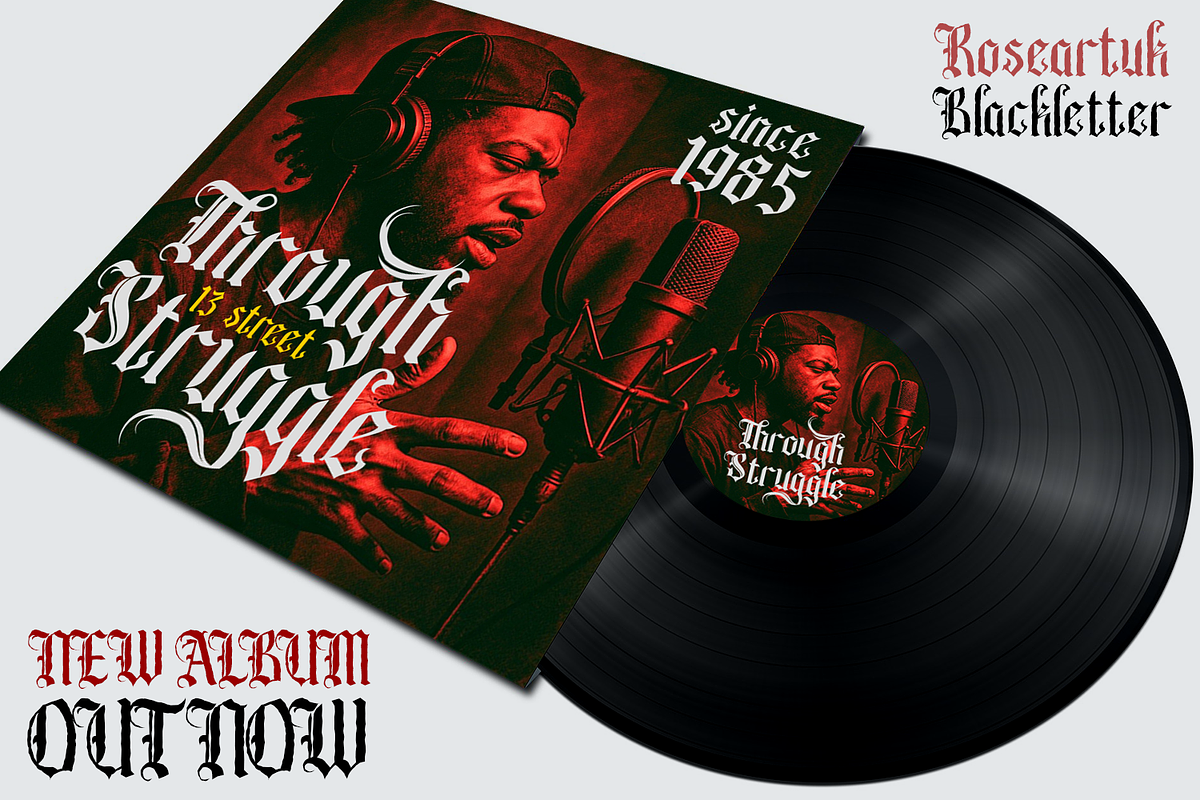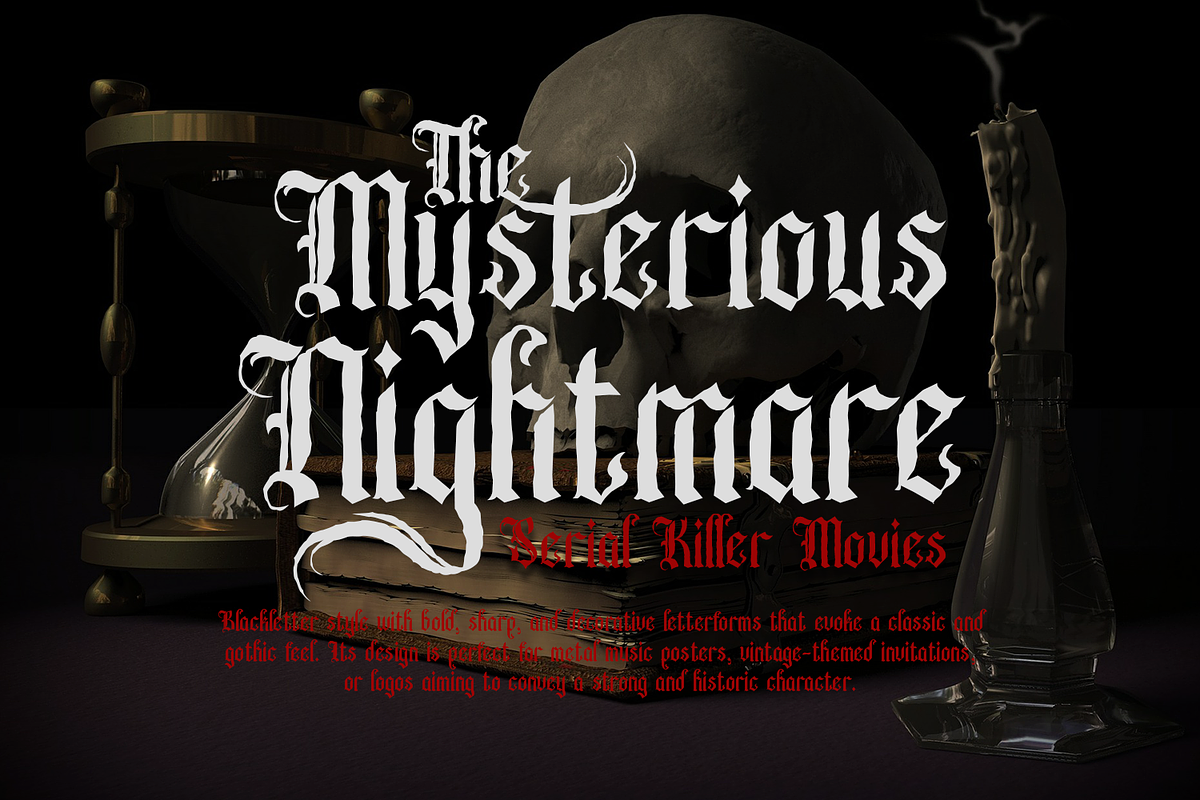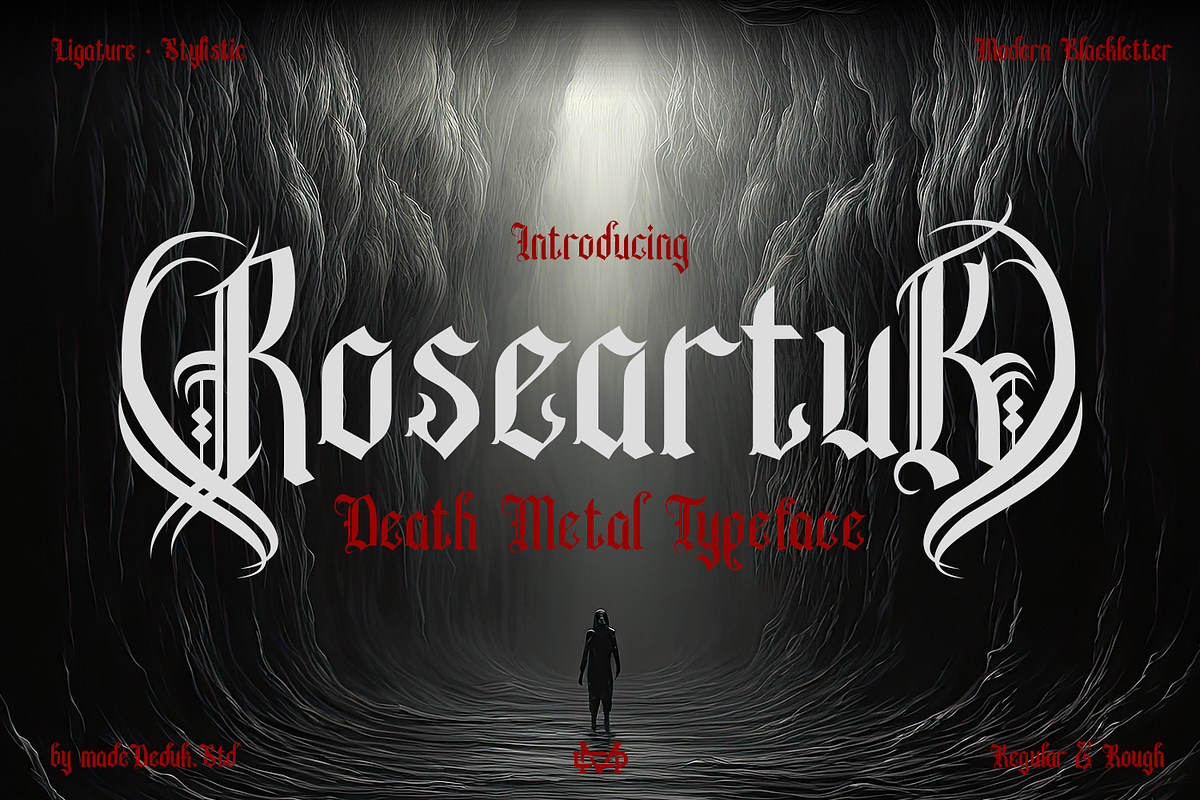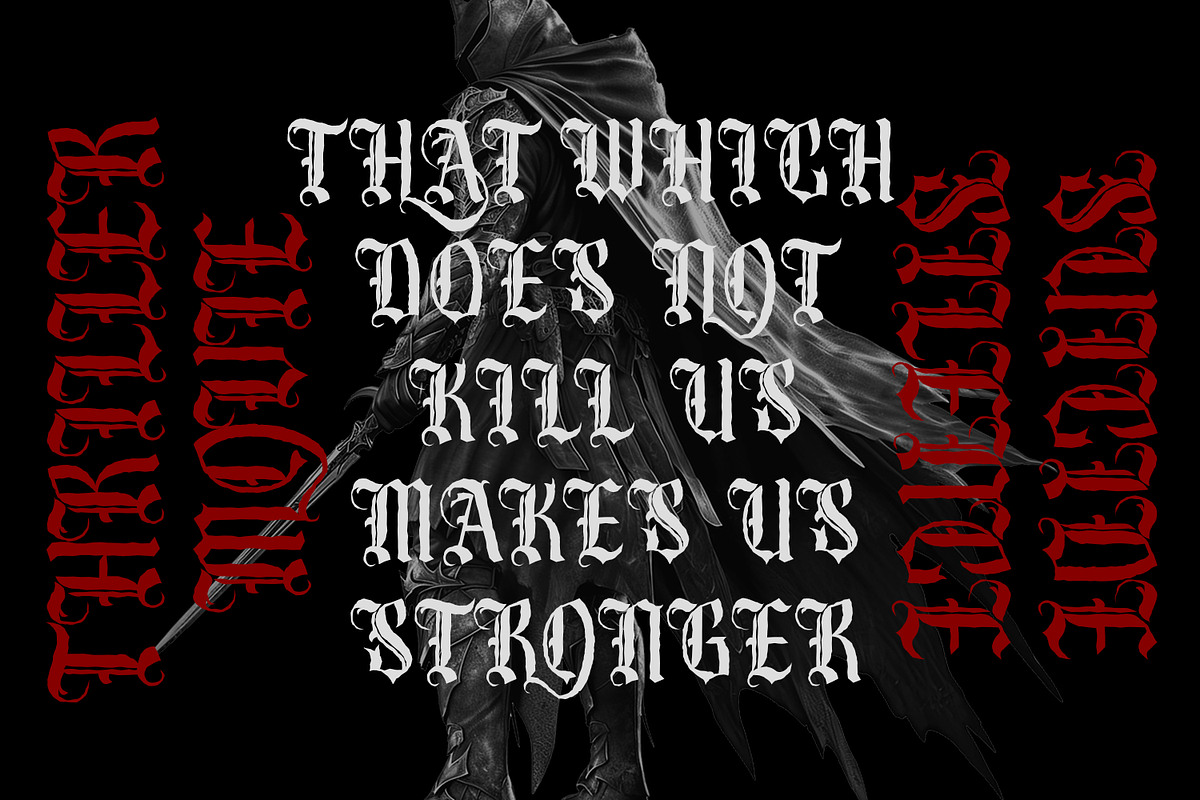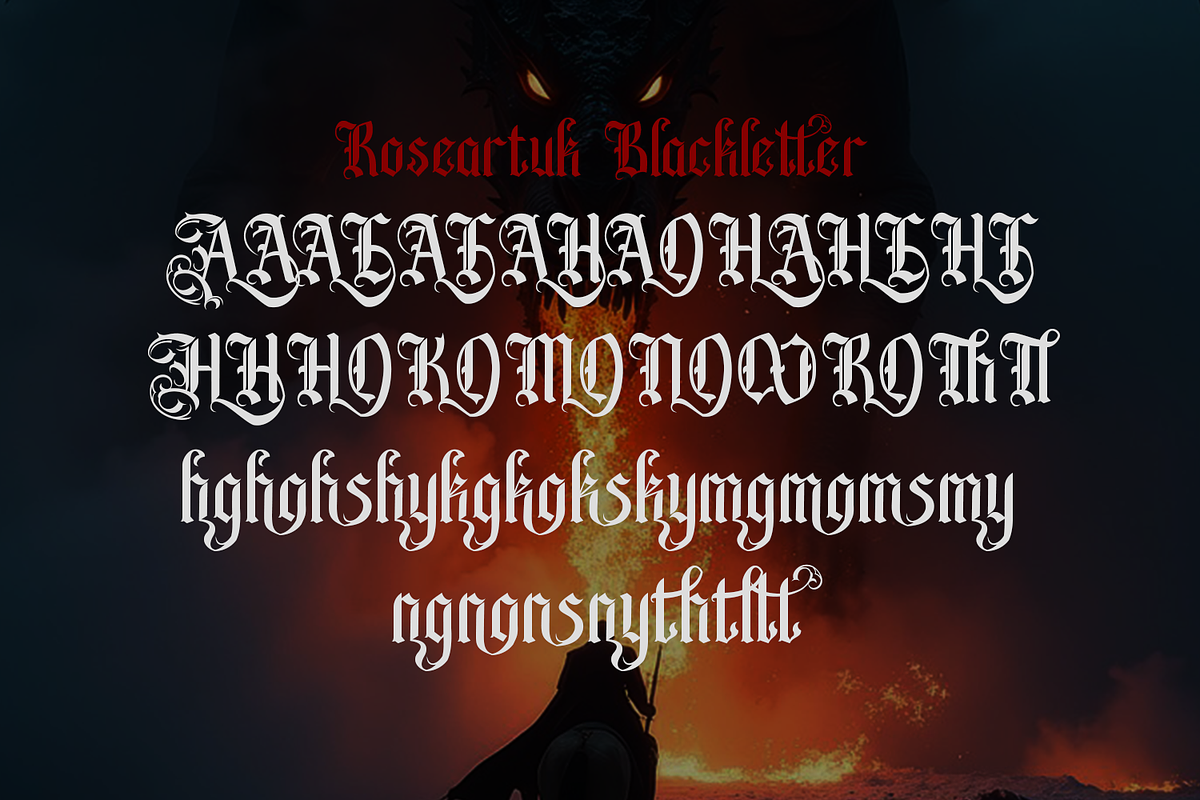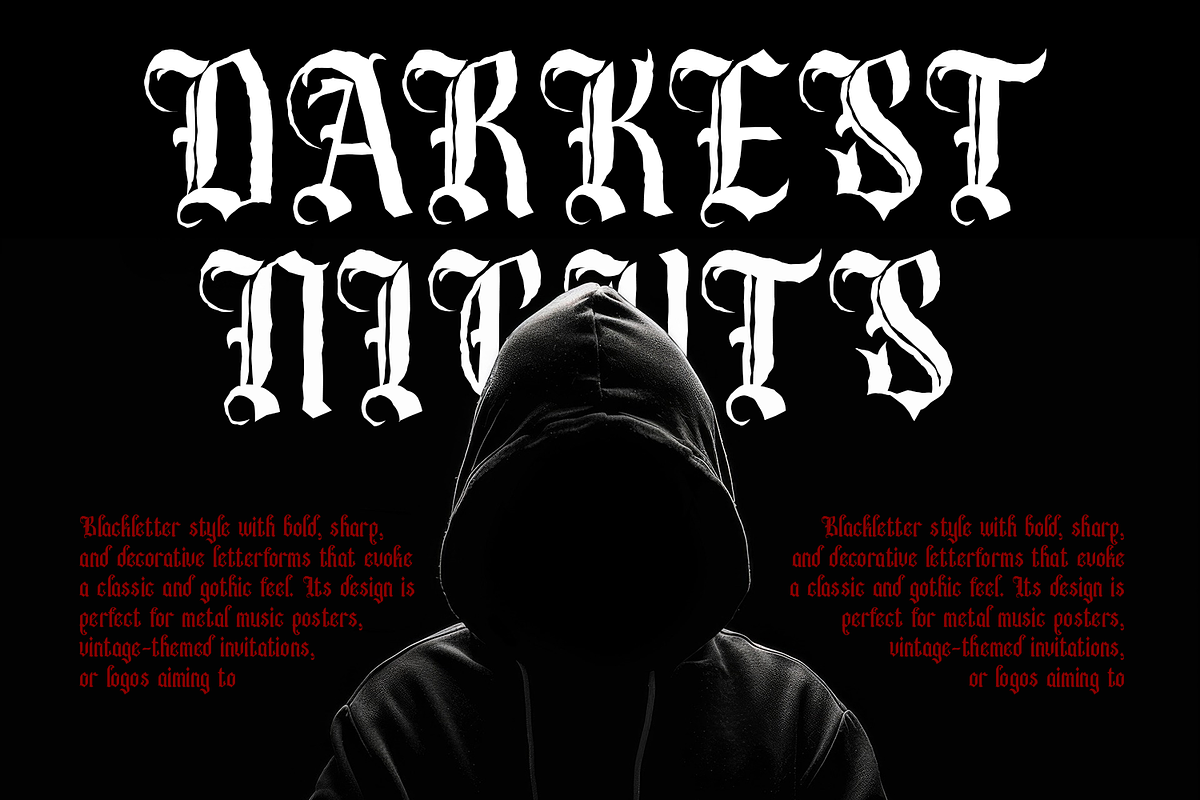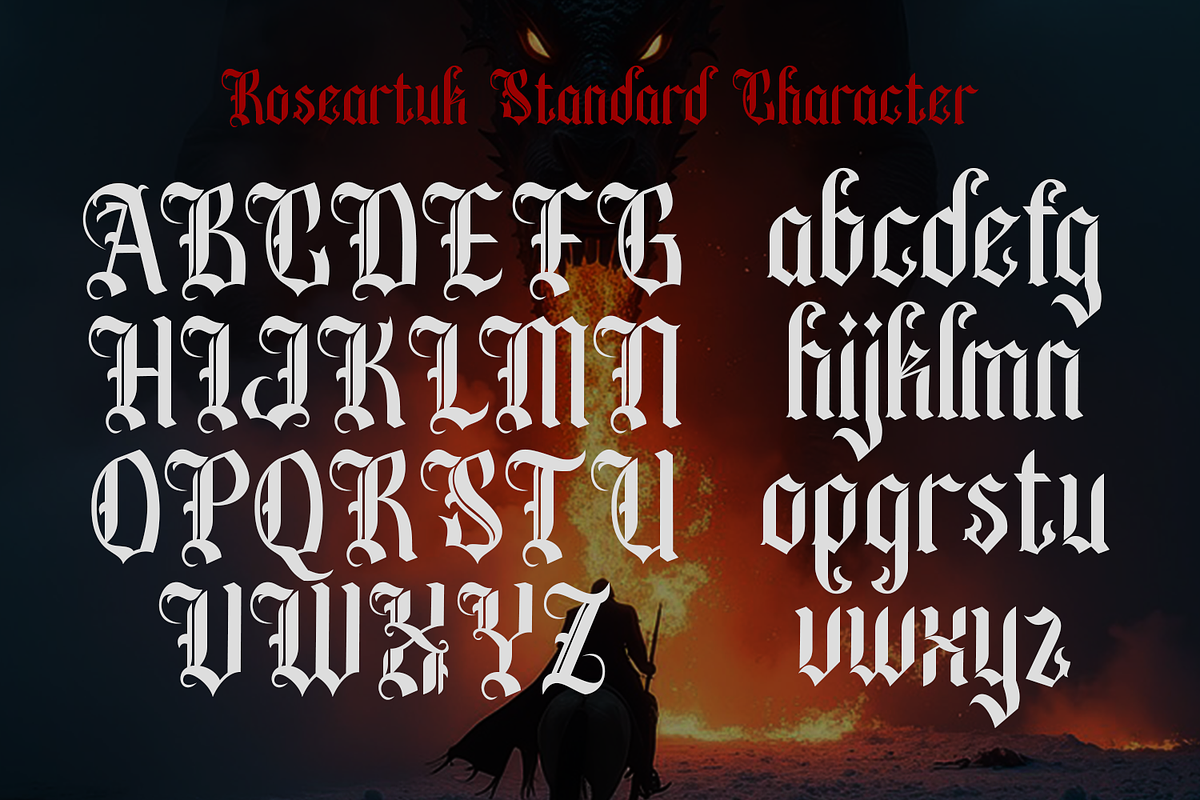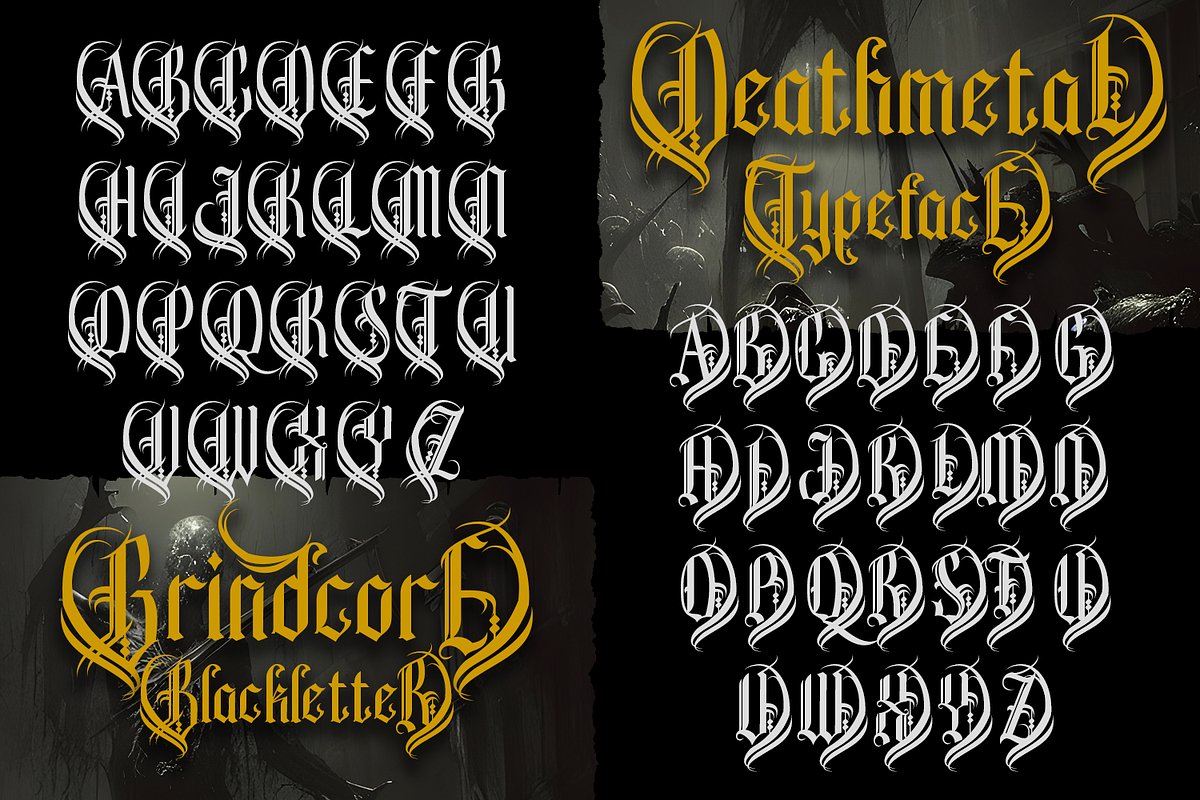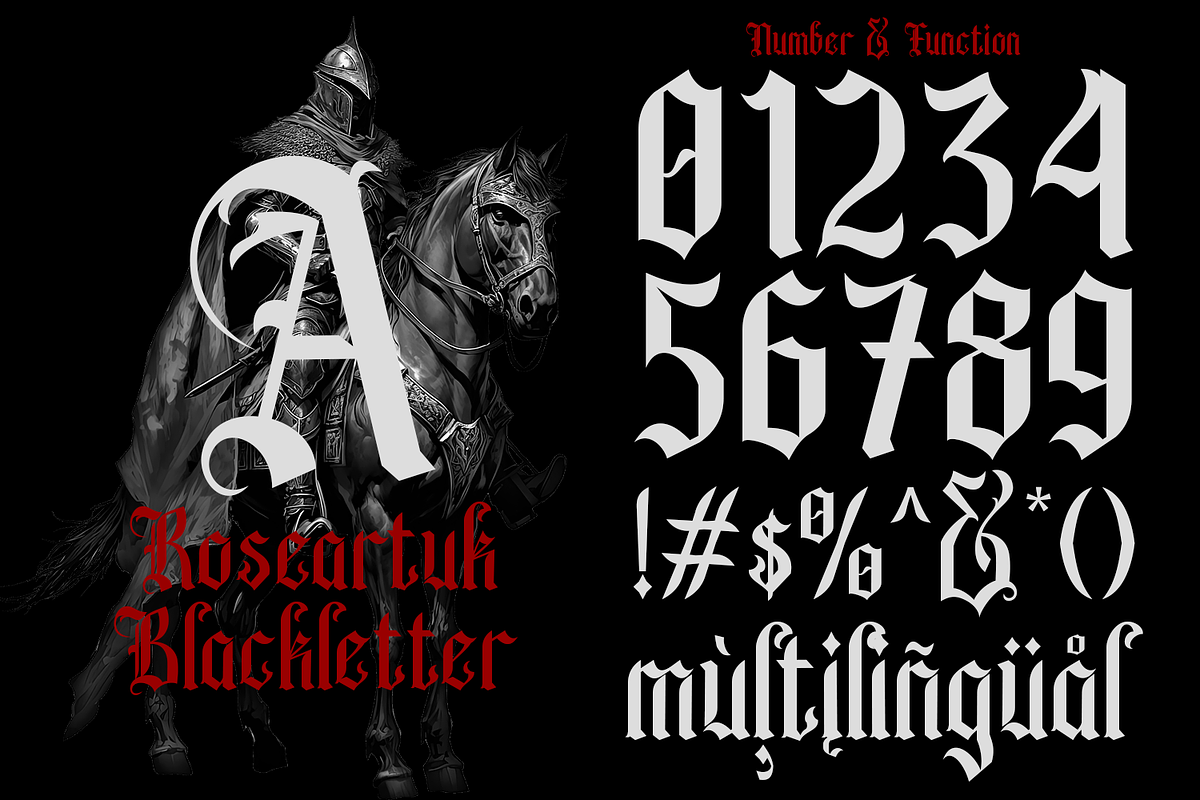
Roseartuk - Blackletter Font
Introducing Roseartuk, a Metal Blackletter style featuring bold, sharp, and decorative letterforms that evoke a classic gothic feel. This font comes with various styles, combining ligatures and special alternative glyphs, allowing for endless creative layouts and compositions. Perfectly crafted for logos and a range of formal applications, it shines in invitations, labels, magazines, book covers, greeting cards, packaging, makeup, novels, metal music posters, and vintage-themed designs. Whether you're creating digital content or printed materials, this font conveys a strong historic character, making it an ideal choice for impactful branding.